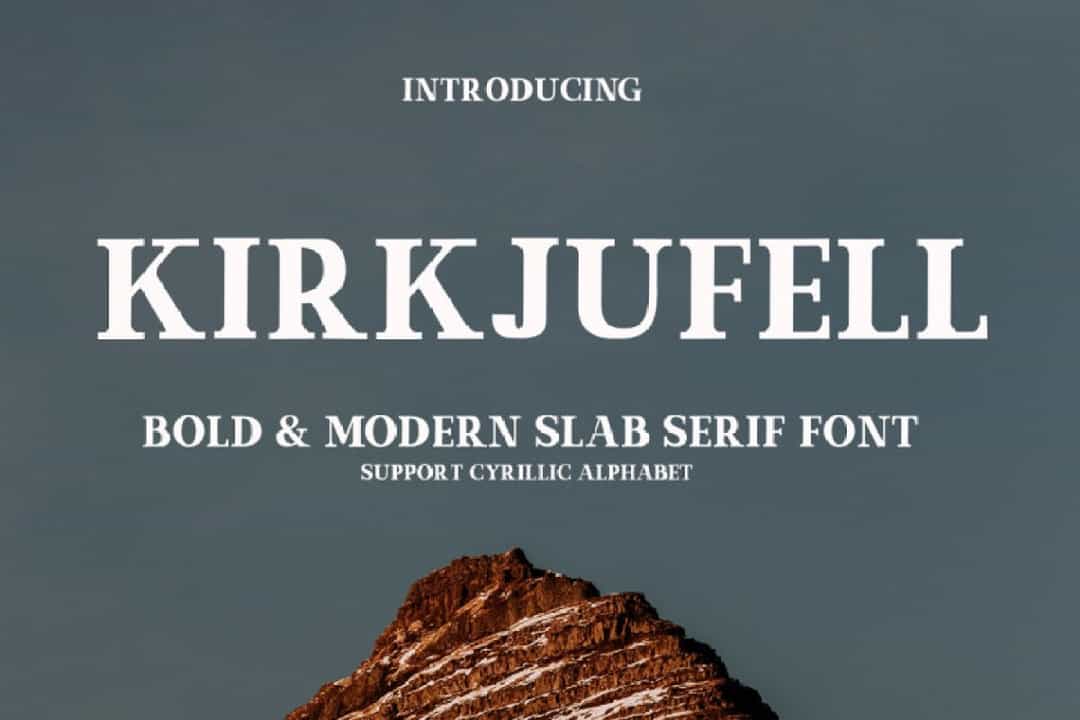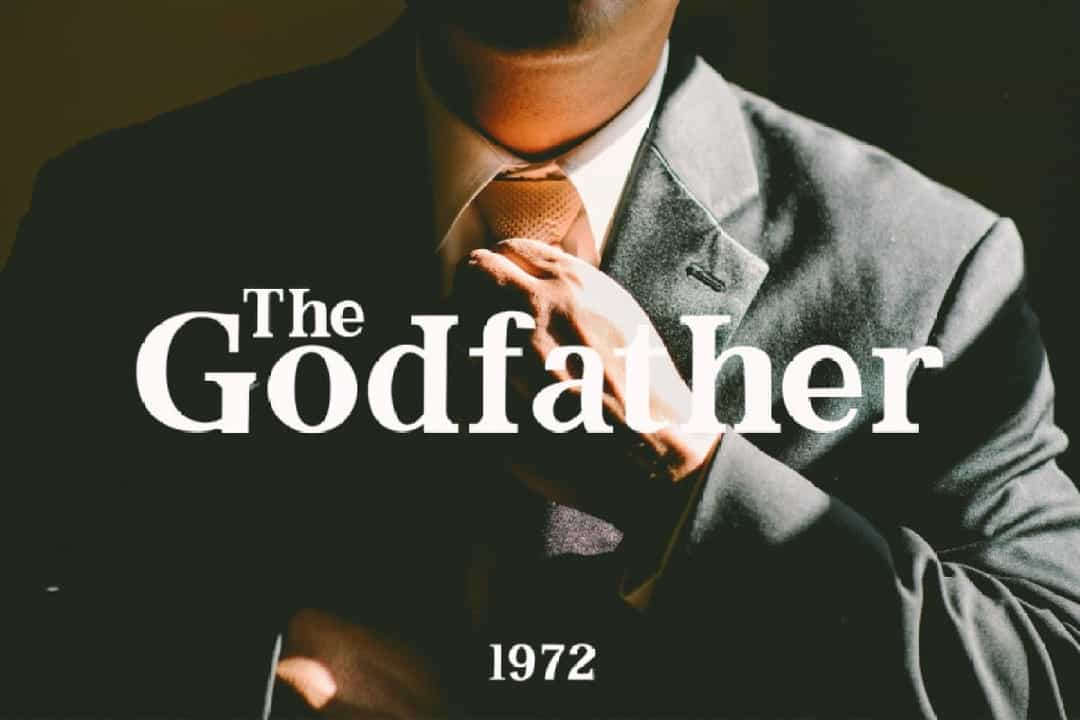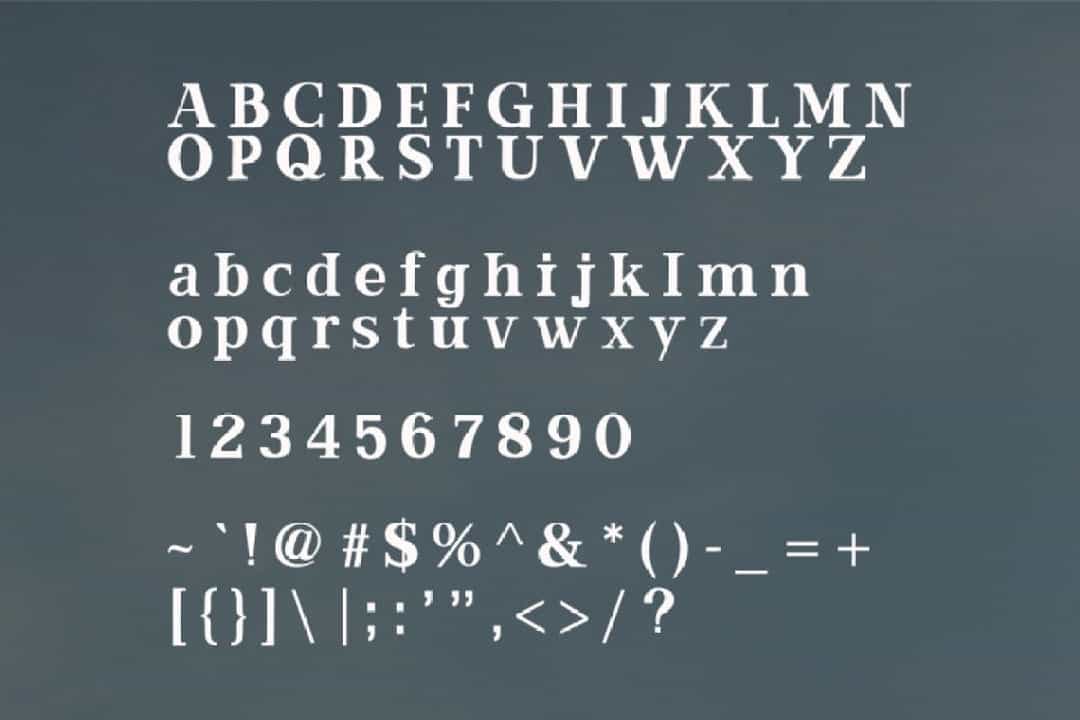
Kirkjufell is an exquisite slab serif style font. Professionally created to elevate your work, this font can look spectacular across various applications and concepts – perfect for writing web designs and business cards, among other uses.